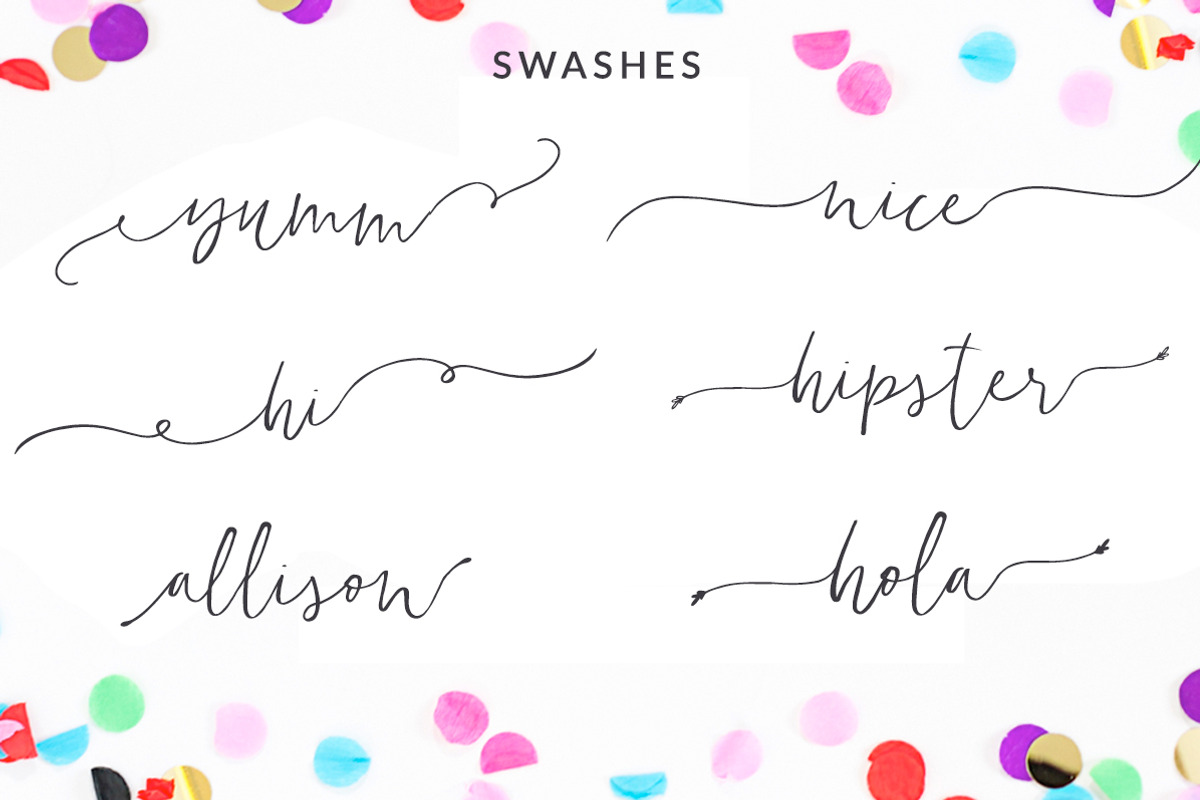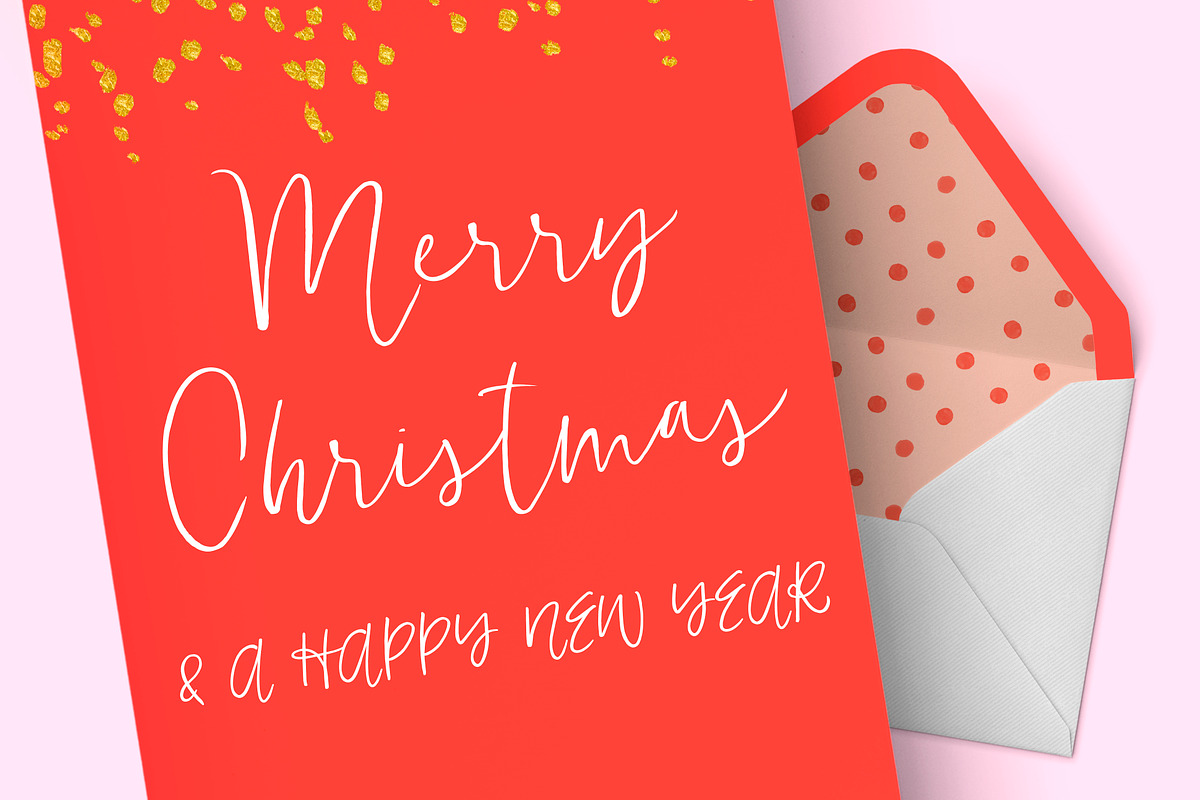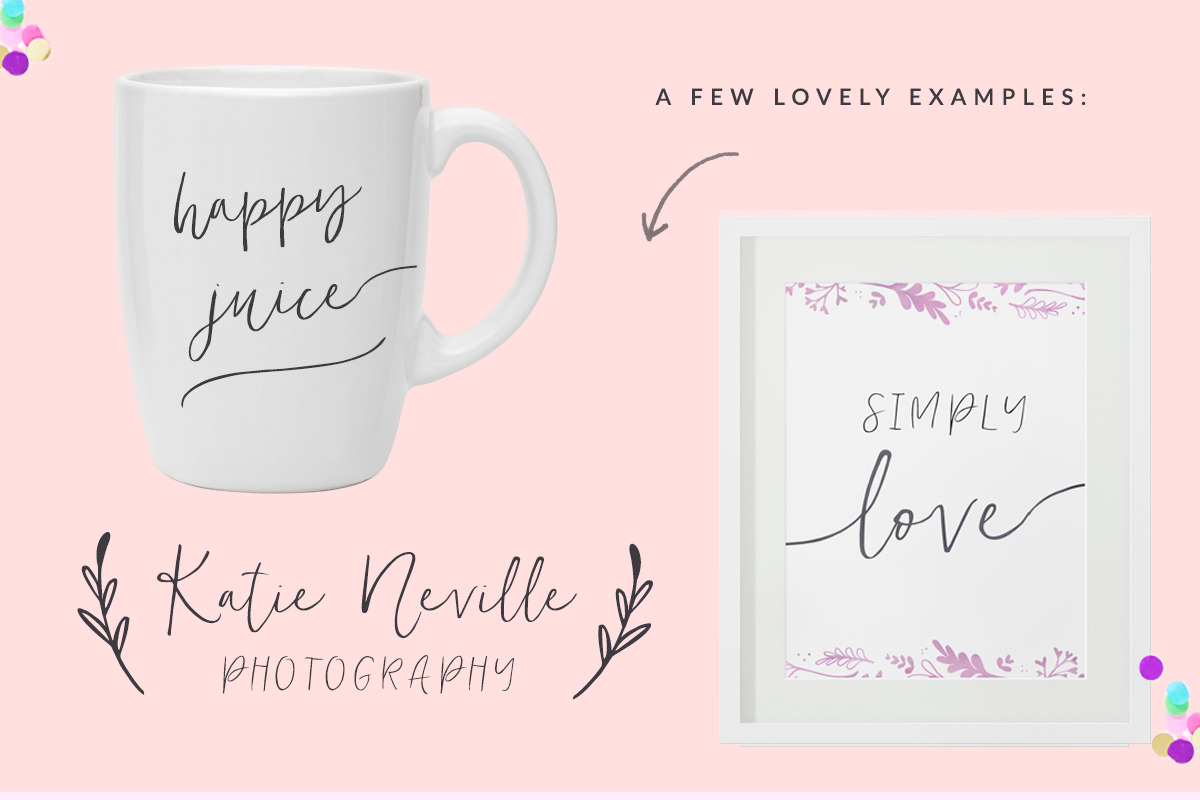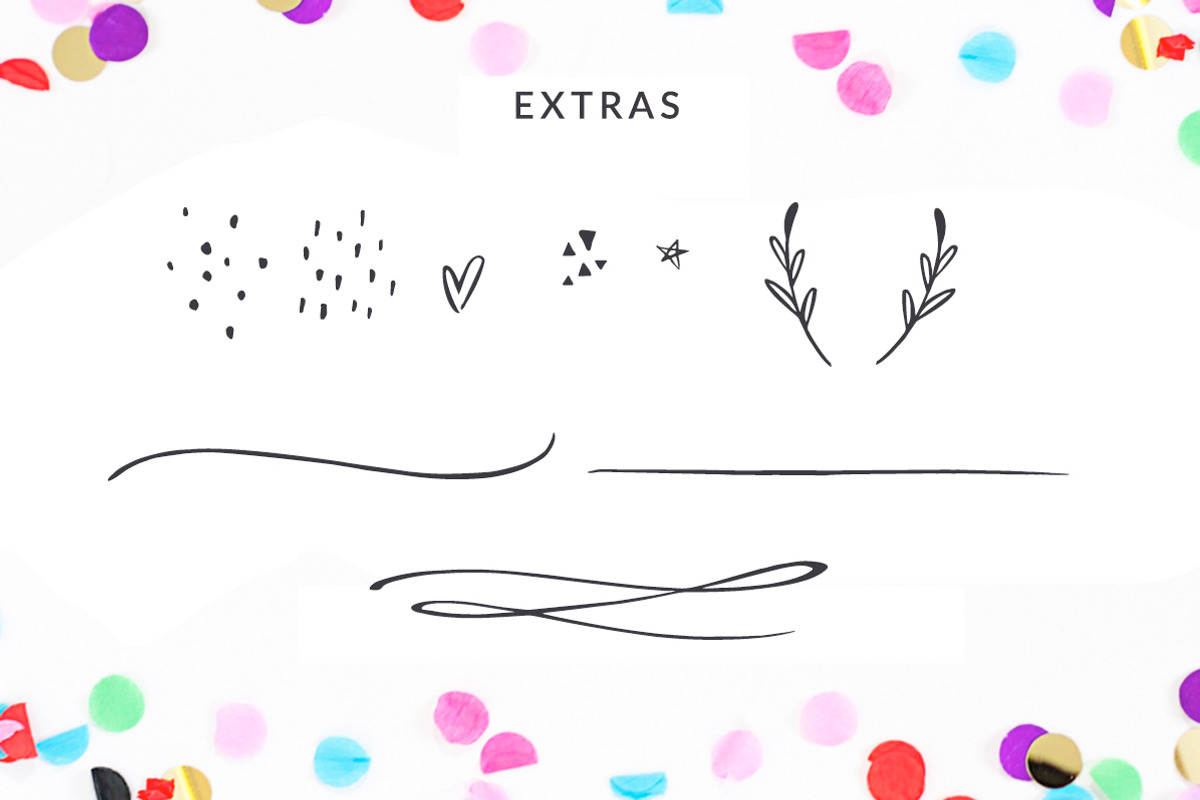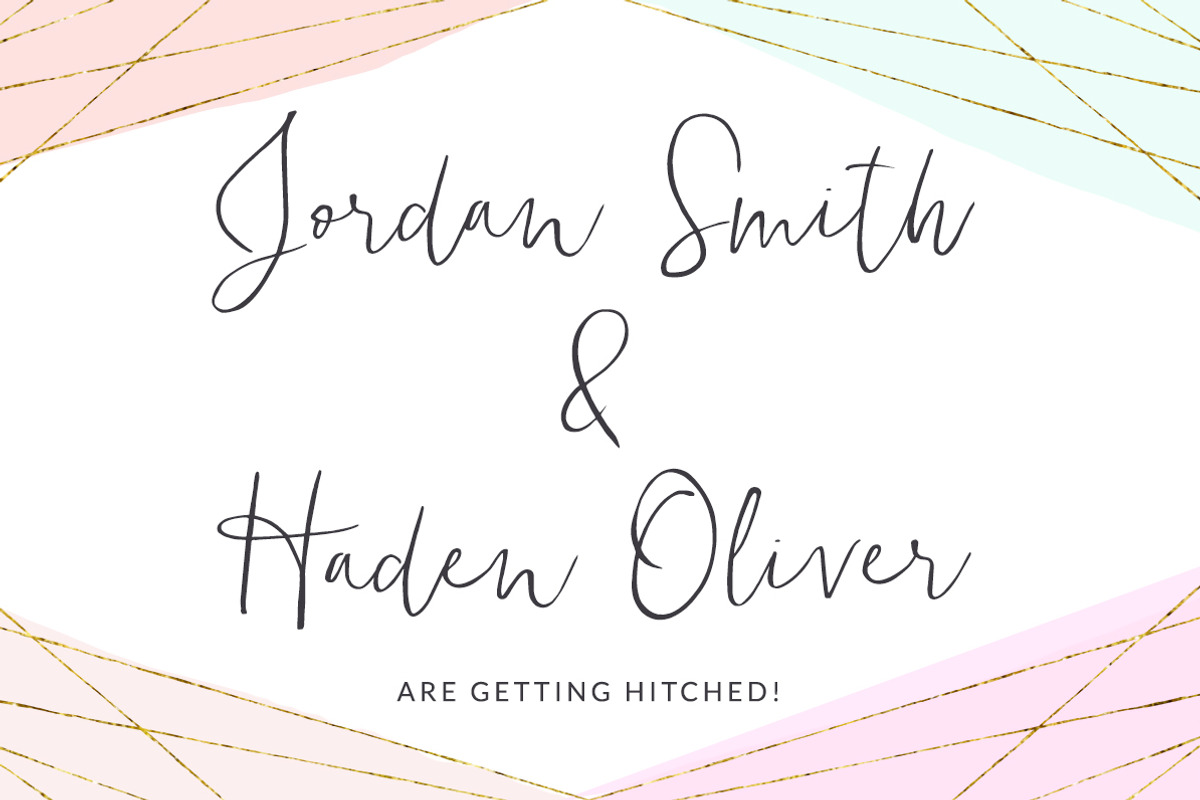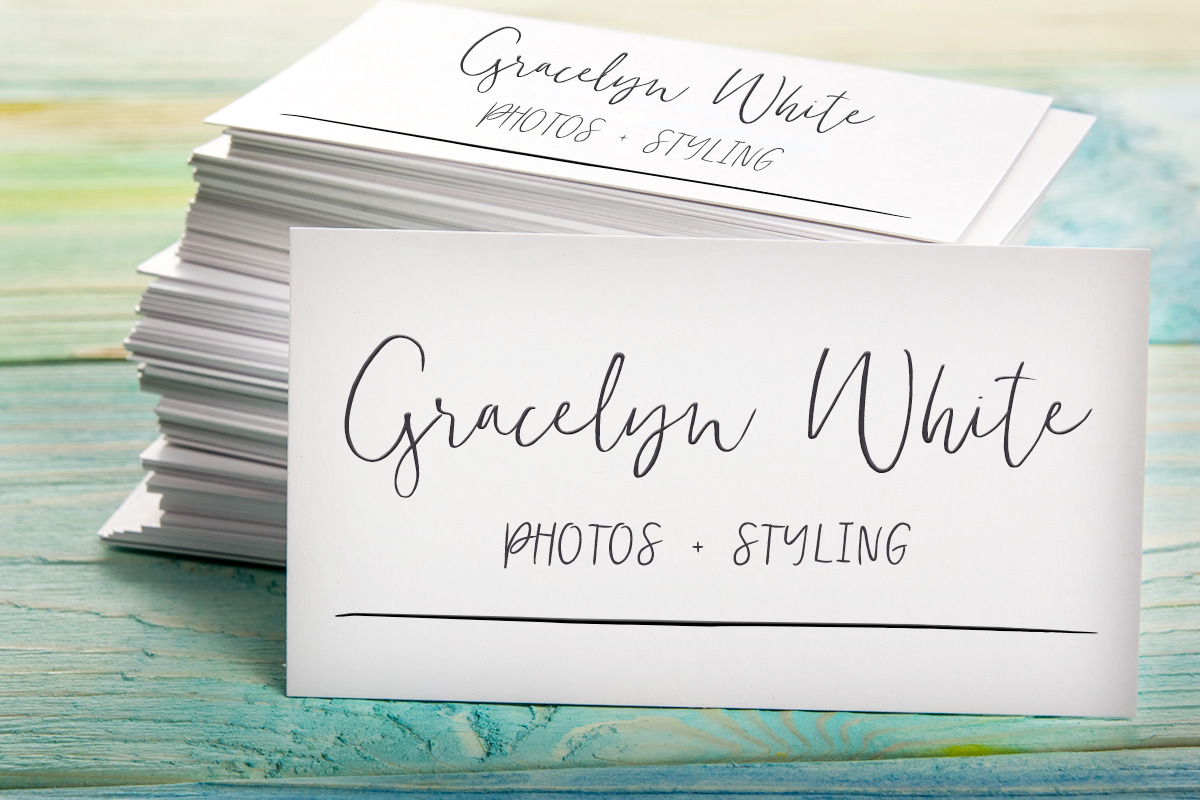
Flatland Font
Flatland Font by Angie Makes is a font selected for branding, posters, packaging, typography.
- Flatland Regular
- Flatland Alternate Caps
- Flatland Extras
Why Flatland Font is worth a look
Flatland Font by Angie Makes fits naturally into Branding, posters, packaging, typography.